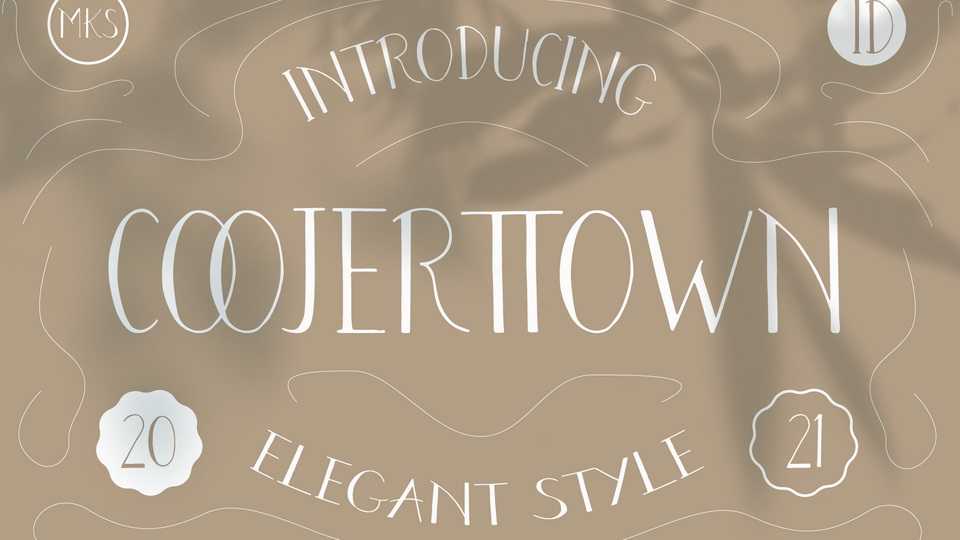
Download Coojertown font, an elegant condensed typeface, carefully crafted to create a stylish and classy designs. Coojertown font is perfectly fit for a wide range of creative projects.
Designer: Jetsmax Studio